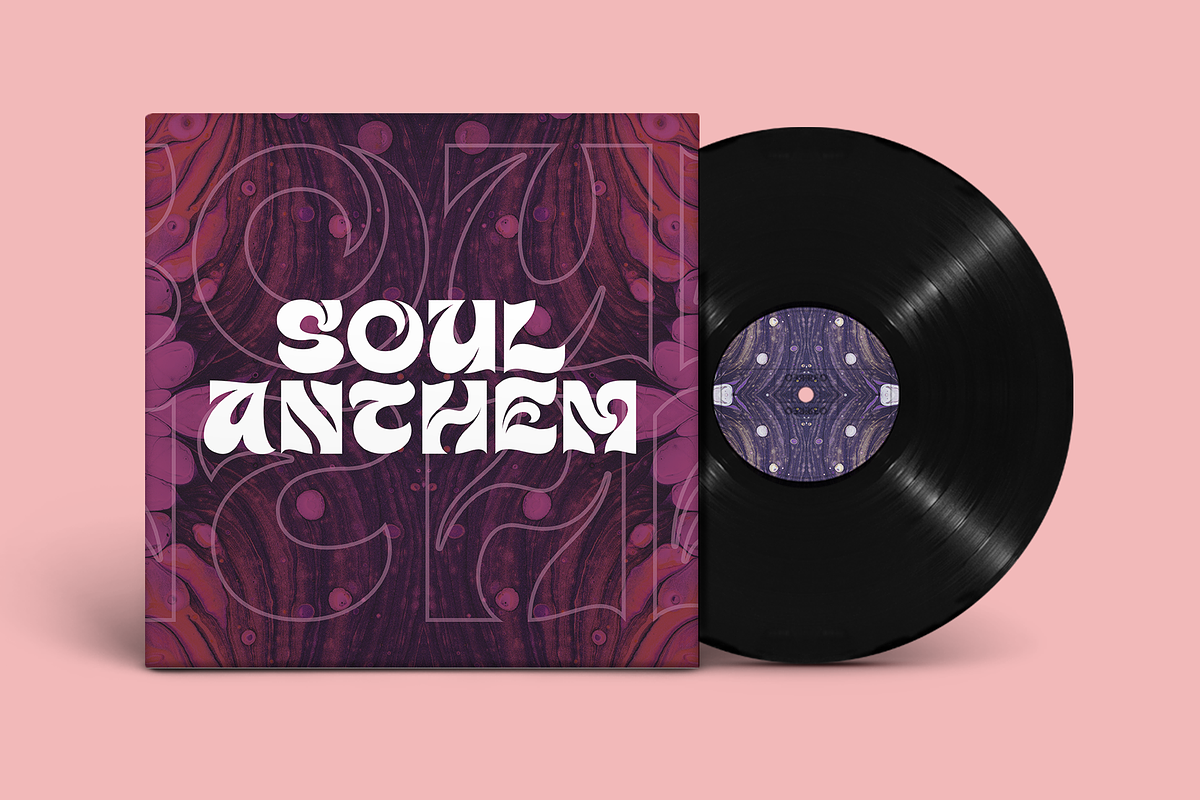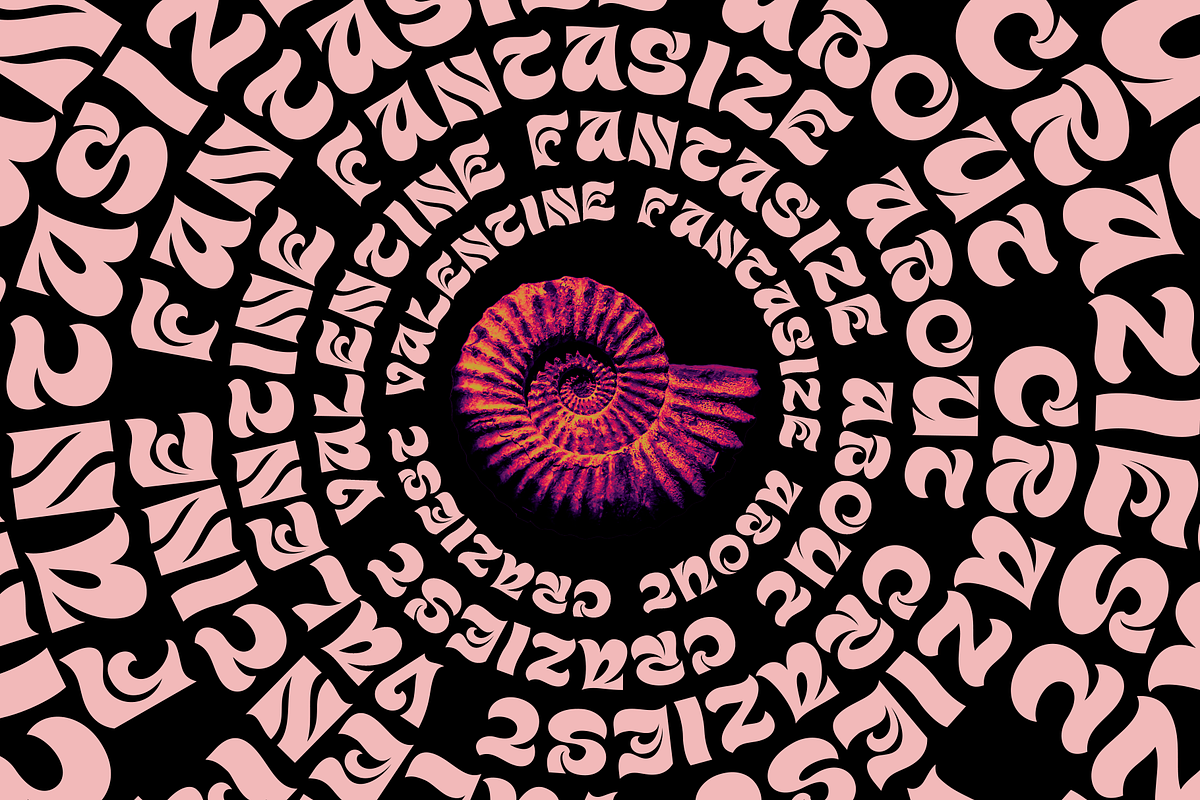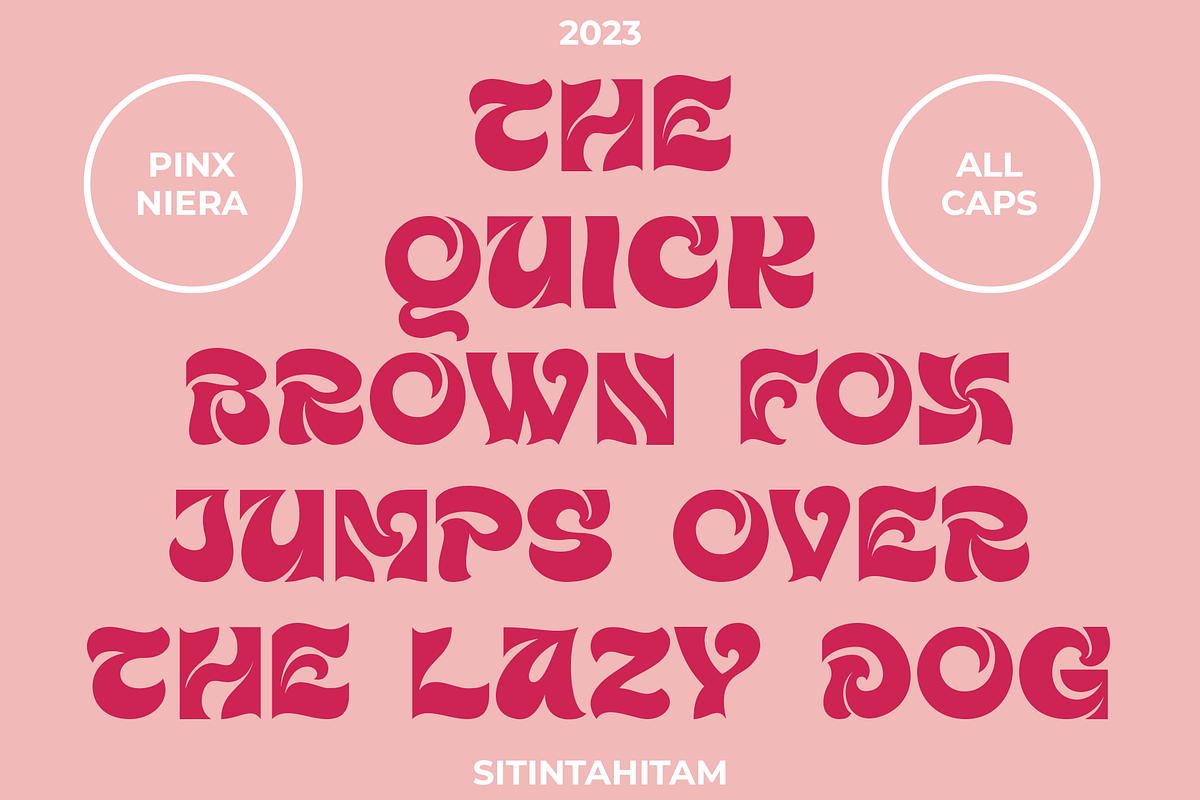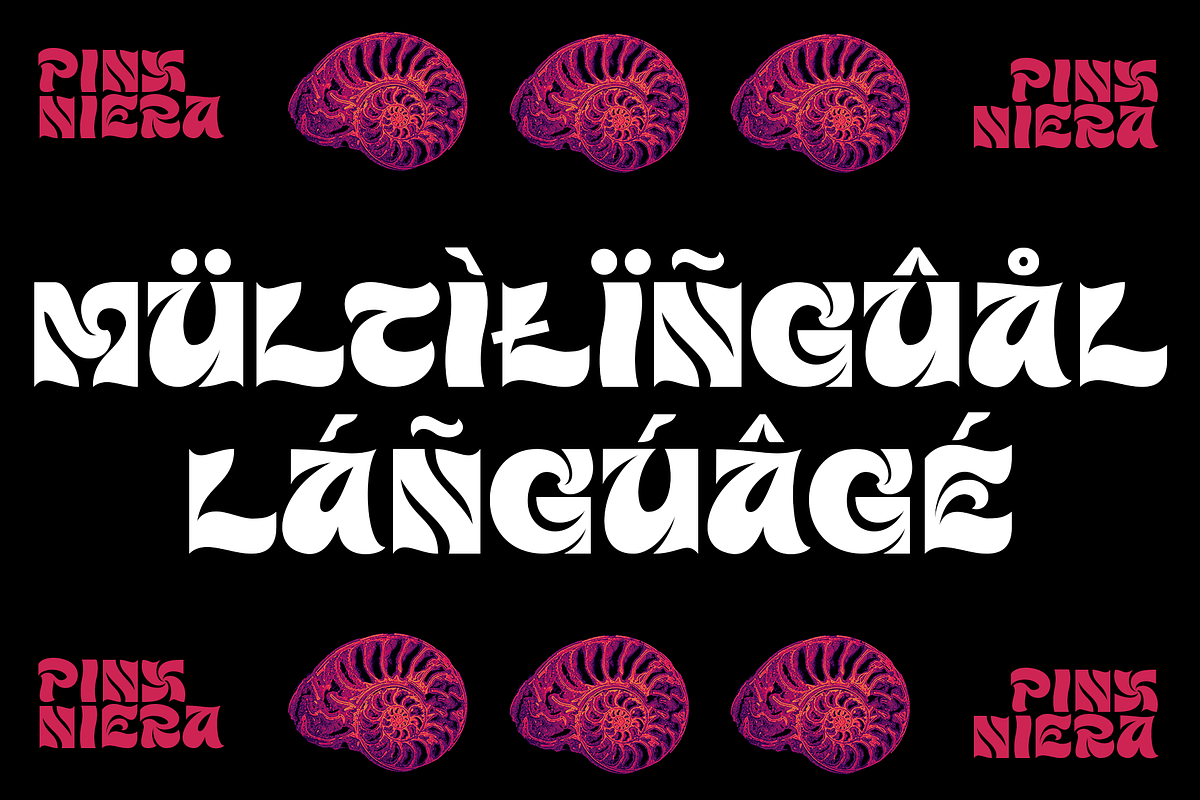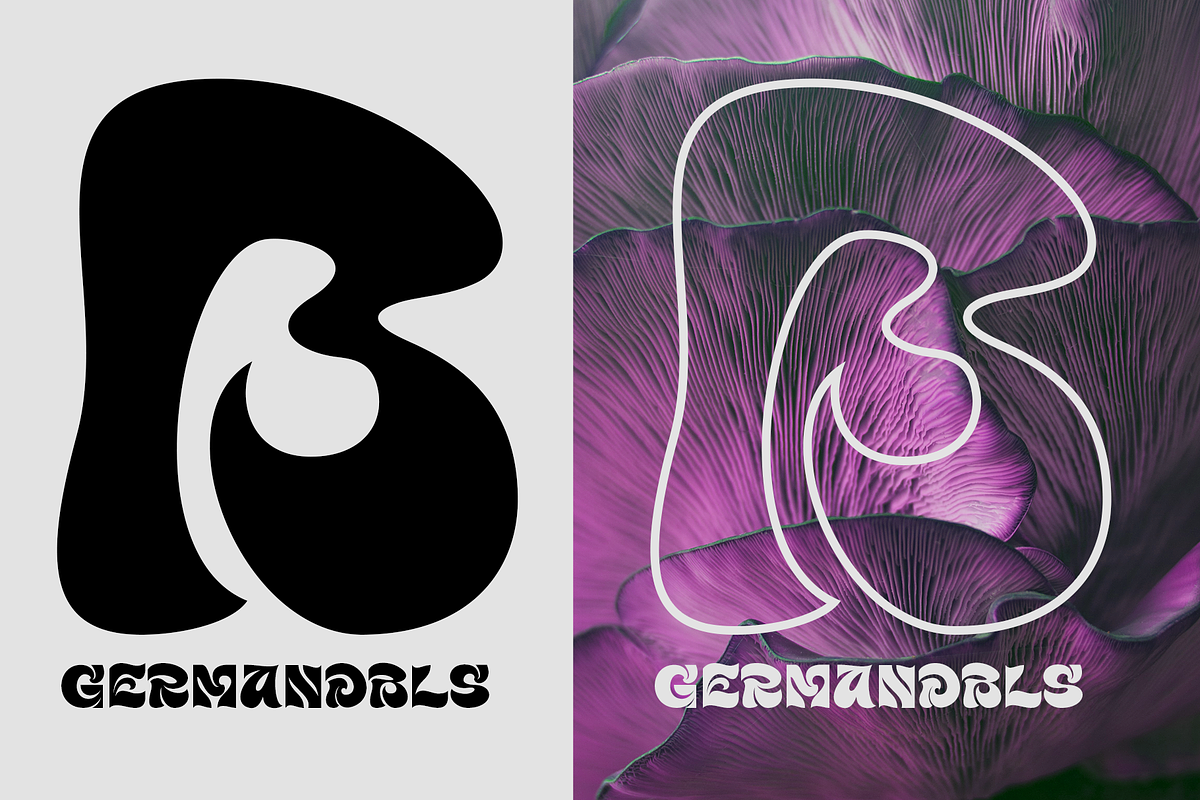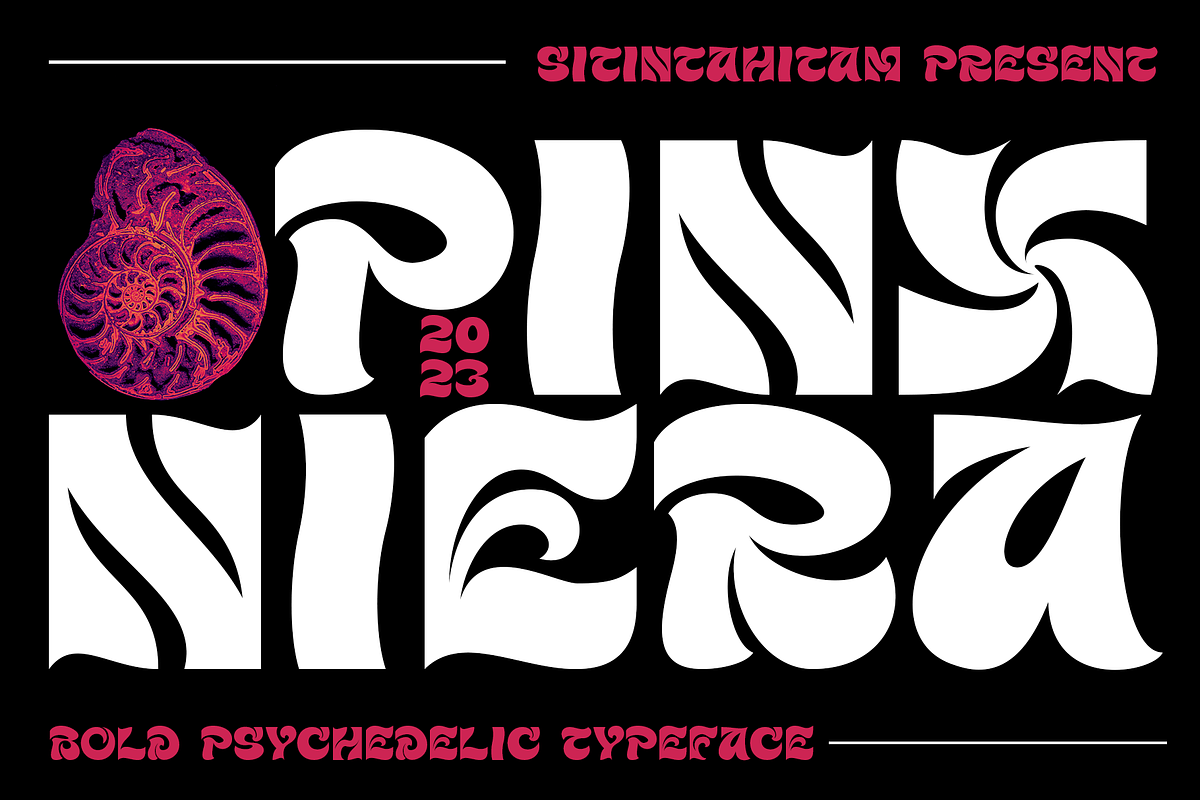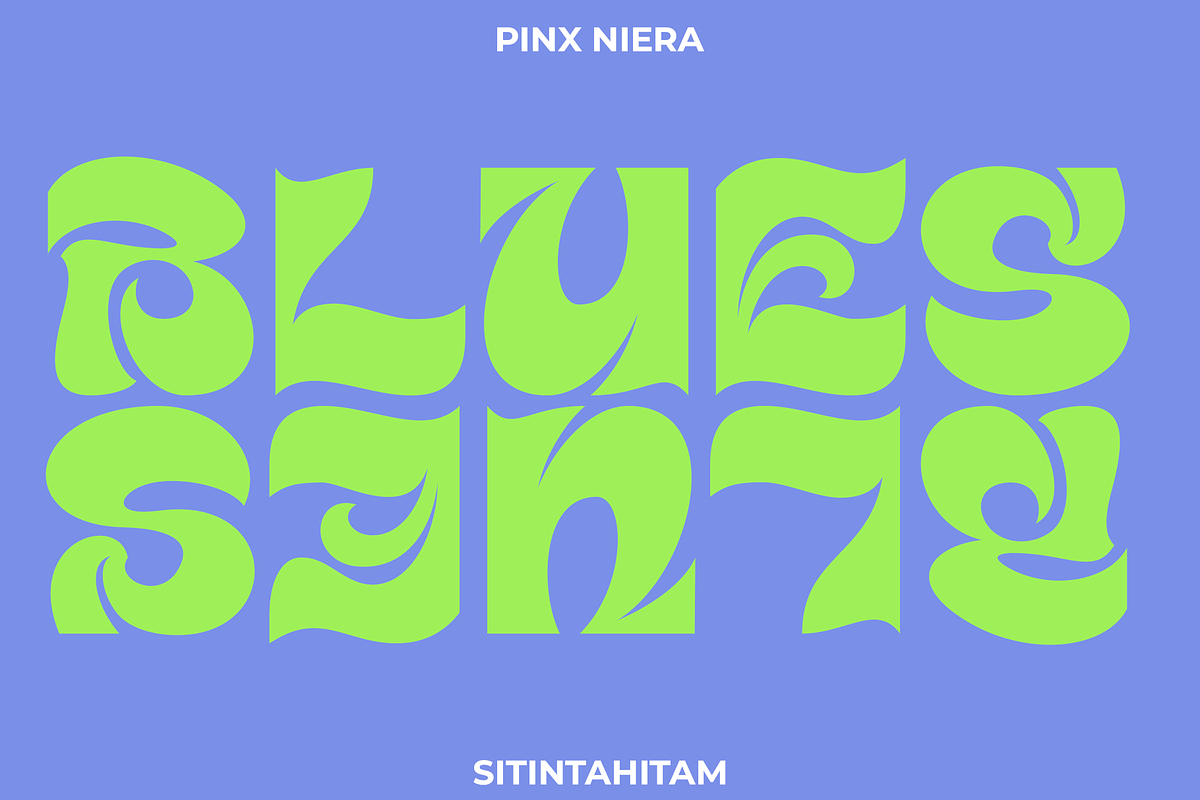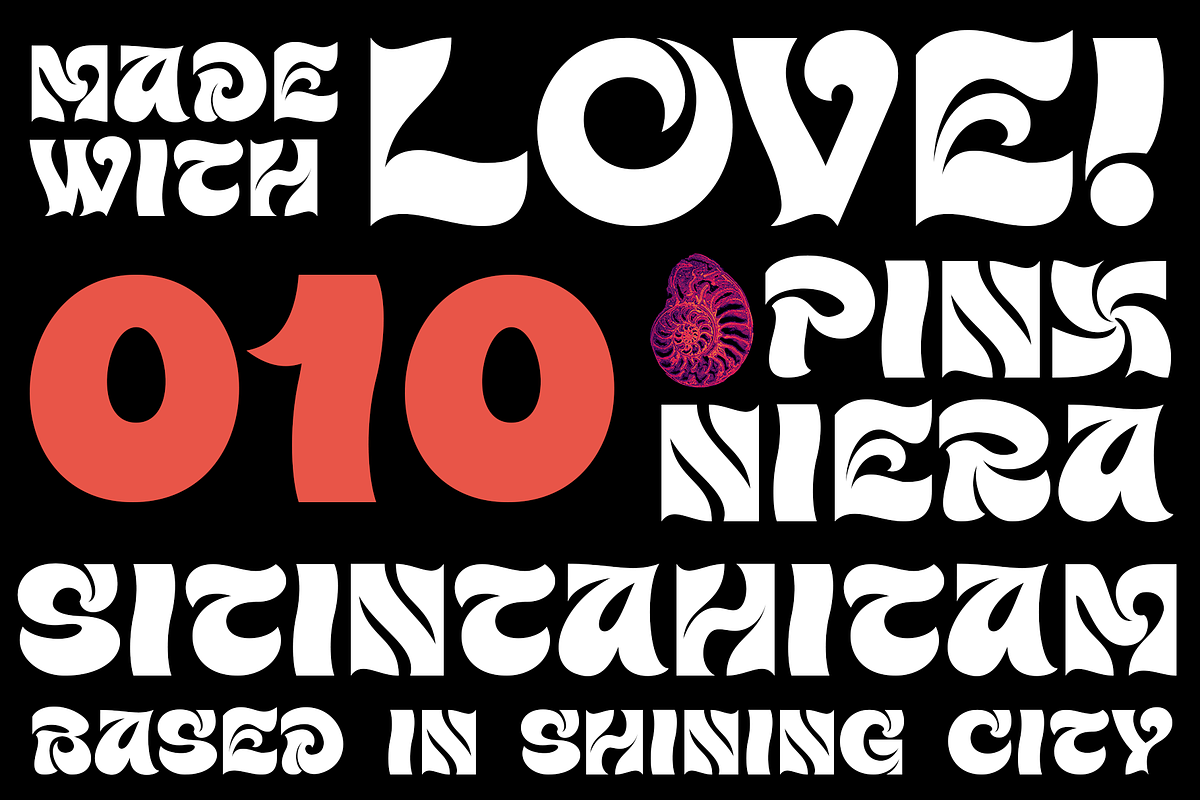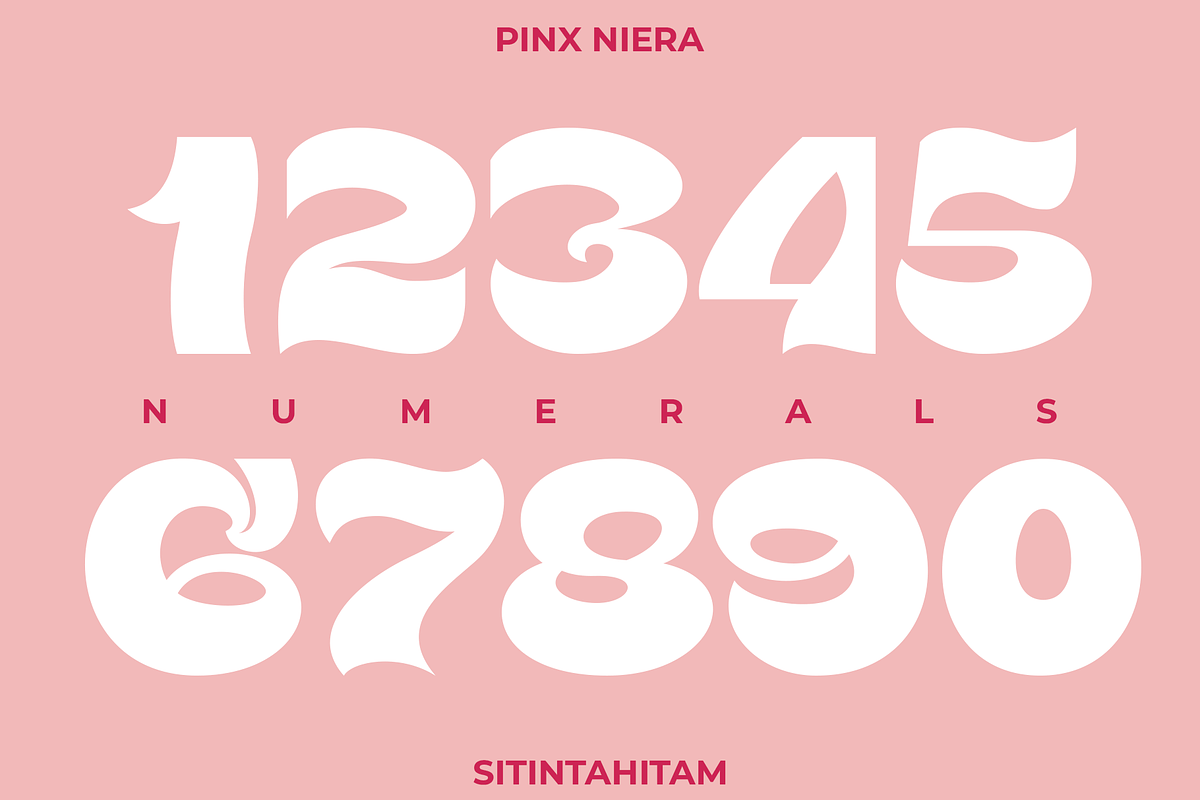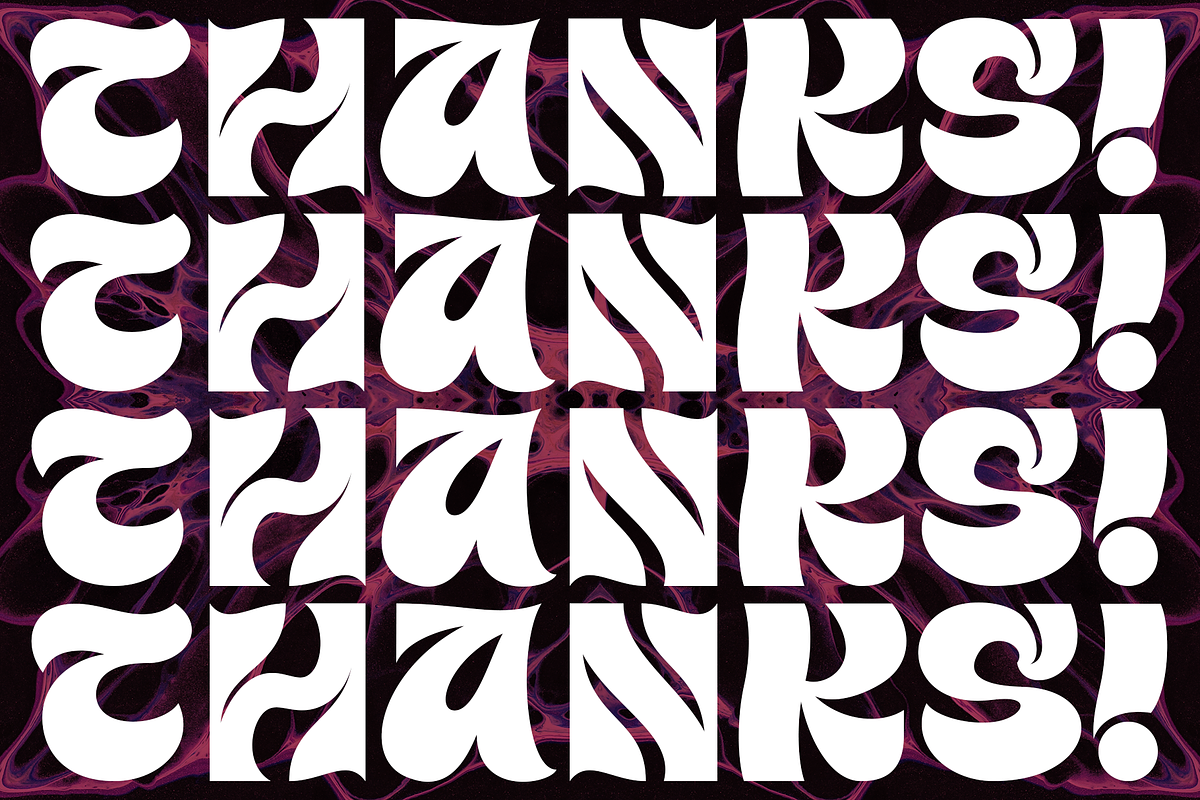
Pinx Niera
Pinx Niera is a bold psychedelic typeface. Inspired by psychedelic music and visual. The typeface looks bold, clean, and unique form. Suitable for any graphic designs such as branding materials, t-shirt, print, logo, poster, packaging .etc